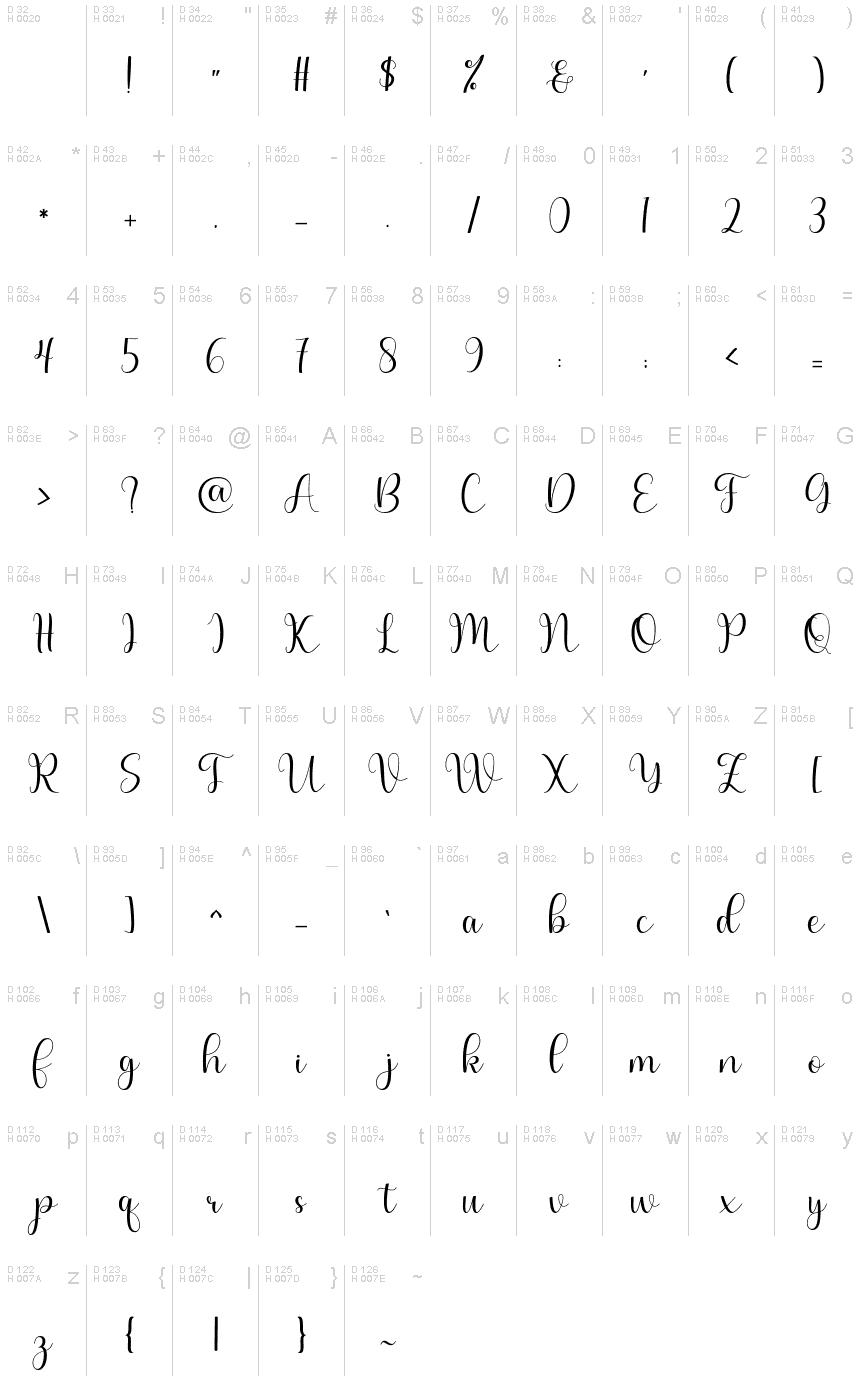
WardaniScript
Wardani Script, designed by Cut Story, is an exquisite calligraphy font that effortlessly blends elegance with modernity. Its semi-light weight adds a delicate touch to any project, making it ideal for wedding invitations, feminine branding, and high-end fashion magazines. This versatile typeface gracefully captures the essence of sophistication and can bring a refined charm to product packaging, luxury cosmetics labels, or even handwritten quotes on social media graphics. Wardani Script's flowing strokes and intricate details will elevate your designs to new heights, leaving a lasting impression of beauty and refinement.